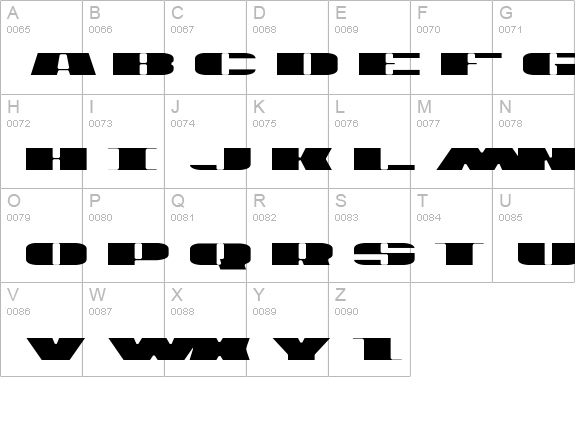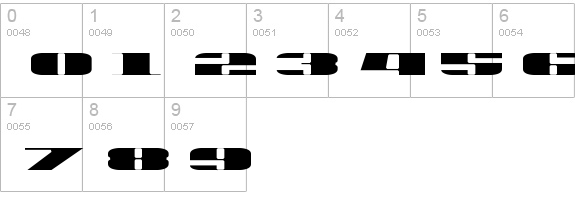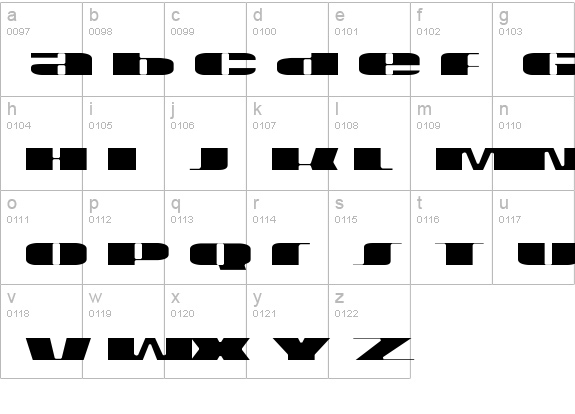
U.S.A. Light Font Details
U.S.A. Light font is a stunning typeface that embodies the essence of American style and grace. With its clean lines and modern design, this font is perfect for adding a touch of sophistication to any project. It exudes a sense of freedom and openness, capturing the spirit of the United States. The U.S.A. Light font is the epitome of versatility, making it suitable for a wide range of applications. Whether you are designing a logo, creating a website, or working on a print project, this font will effortlessly elevate your work to new heights. One of the best things about U.S.A. Light font is that it is freely available to download at FontsMarket.com. This means that you can easily access this incredible font without any cost. Its availability for free allows designers and creatives to explore its potential and unleash their creativity without any limitations. With its sleek and legible design, U.S.A. Light font is a true gem in the world of typography. Its gentle curves and balanced proportions make it a pleasure to read, ensuring that your message will be conveyed with clarity and elegance. Whether you are a professional designer or an aspiring creative, U.S.A. Light font is a must-have in your font collection. Its timeless appeal and seamless integration into various design projects make it a valuable asset that you will turn to time and time again. Experience the freedom and beauty of the U.S.A. Light font today by downloading it freely at FontsMarket.com. Embrace the versatility and sophistication that this font offers, and watch as your designs come to life with a touch of American flair.